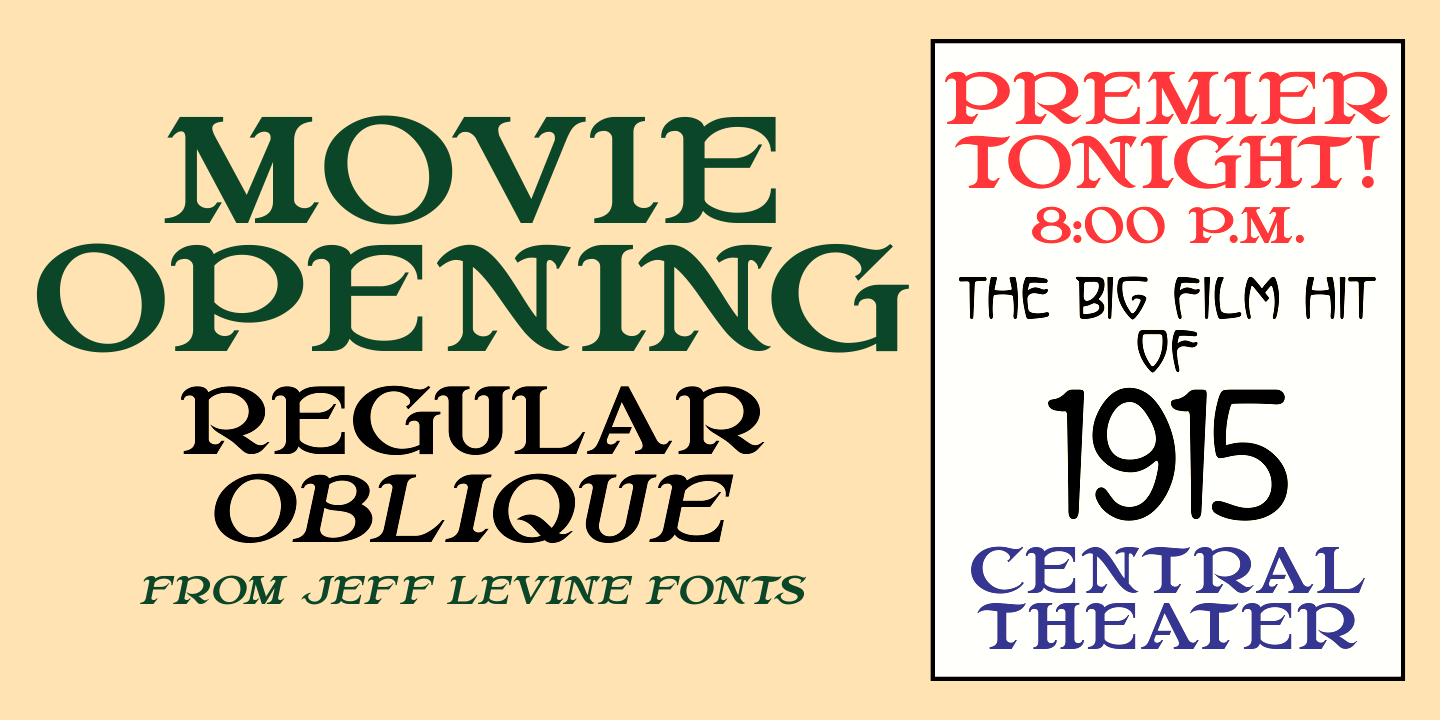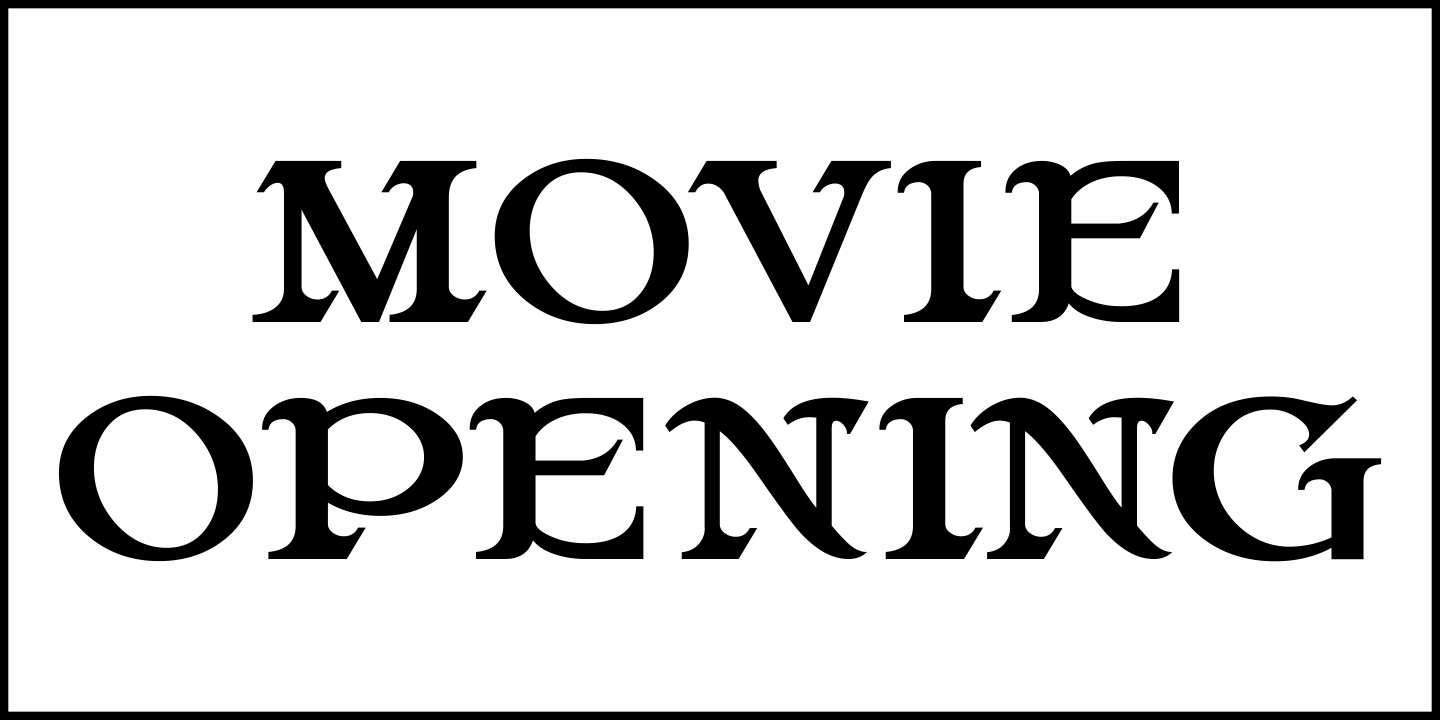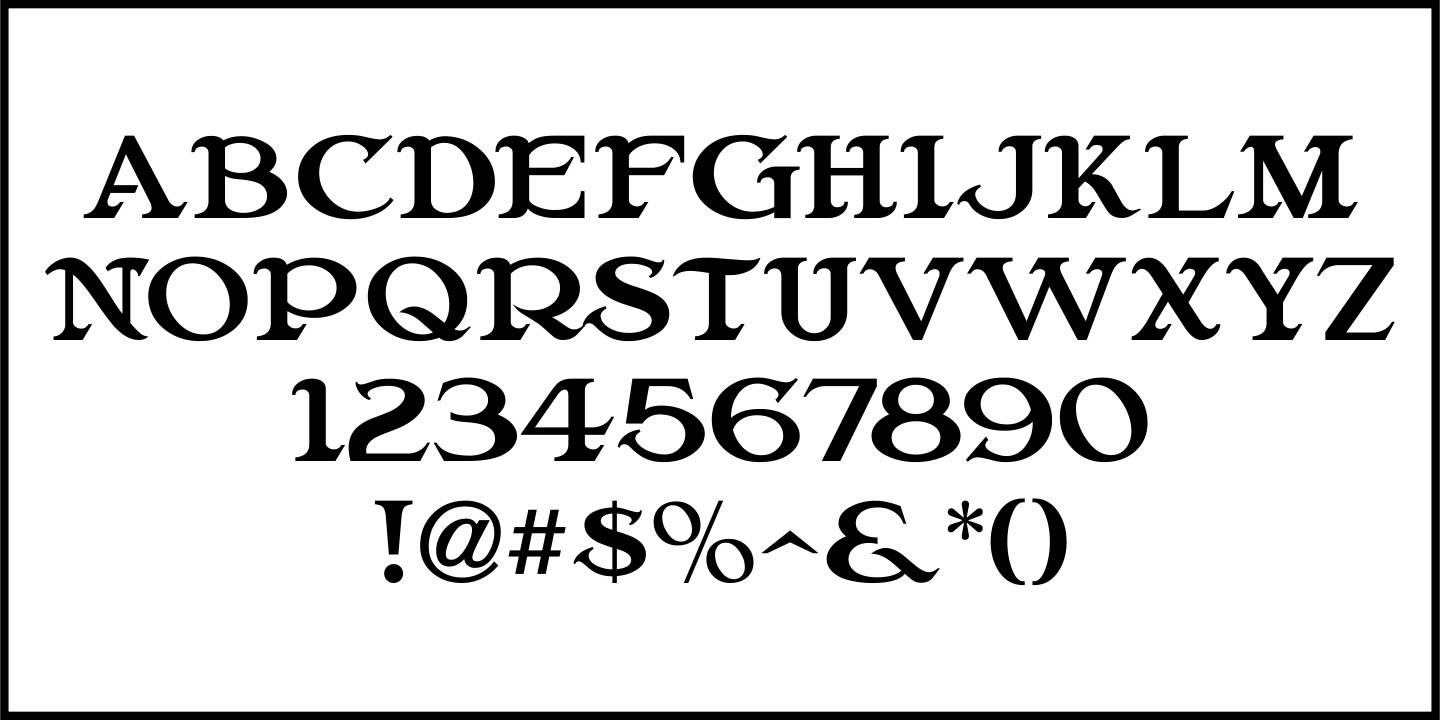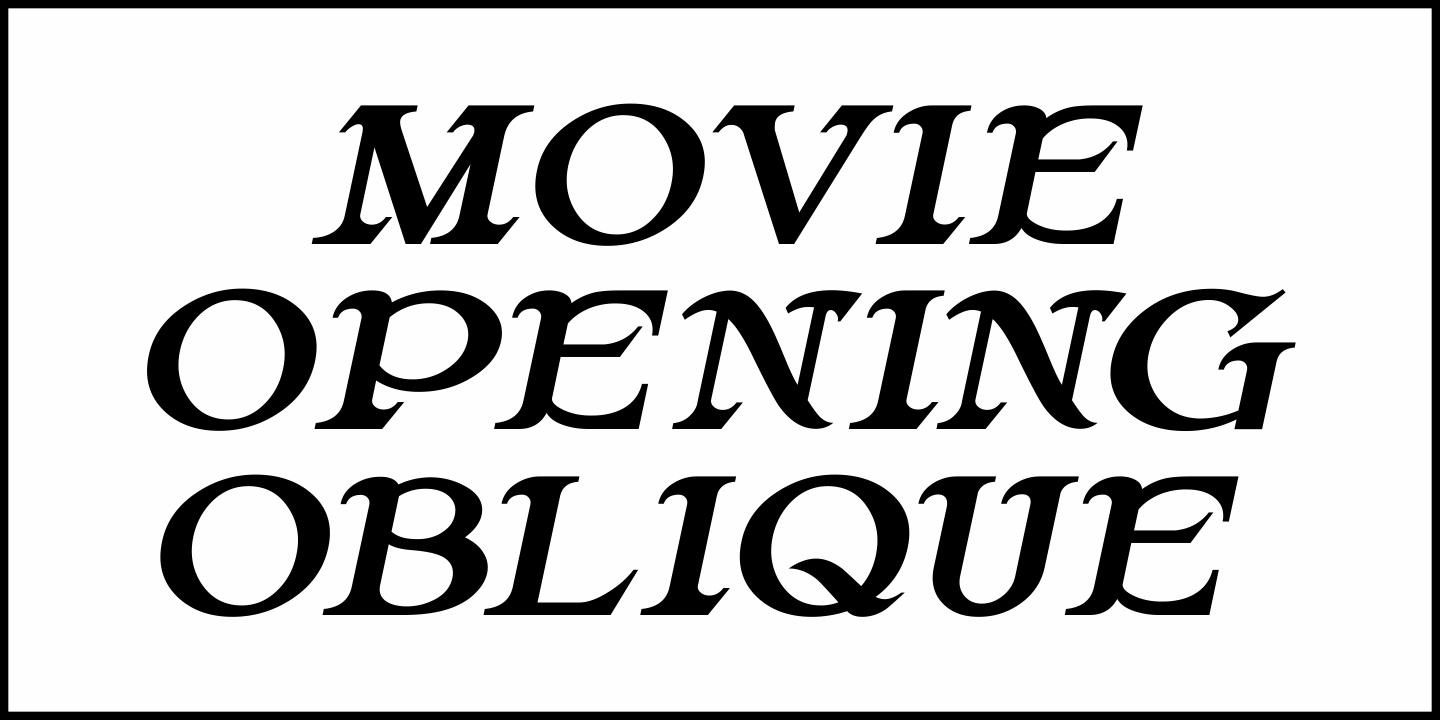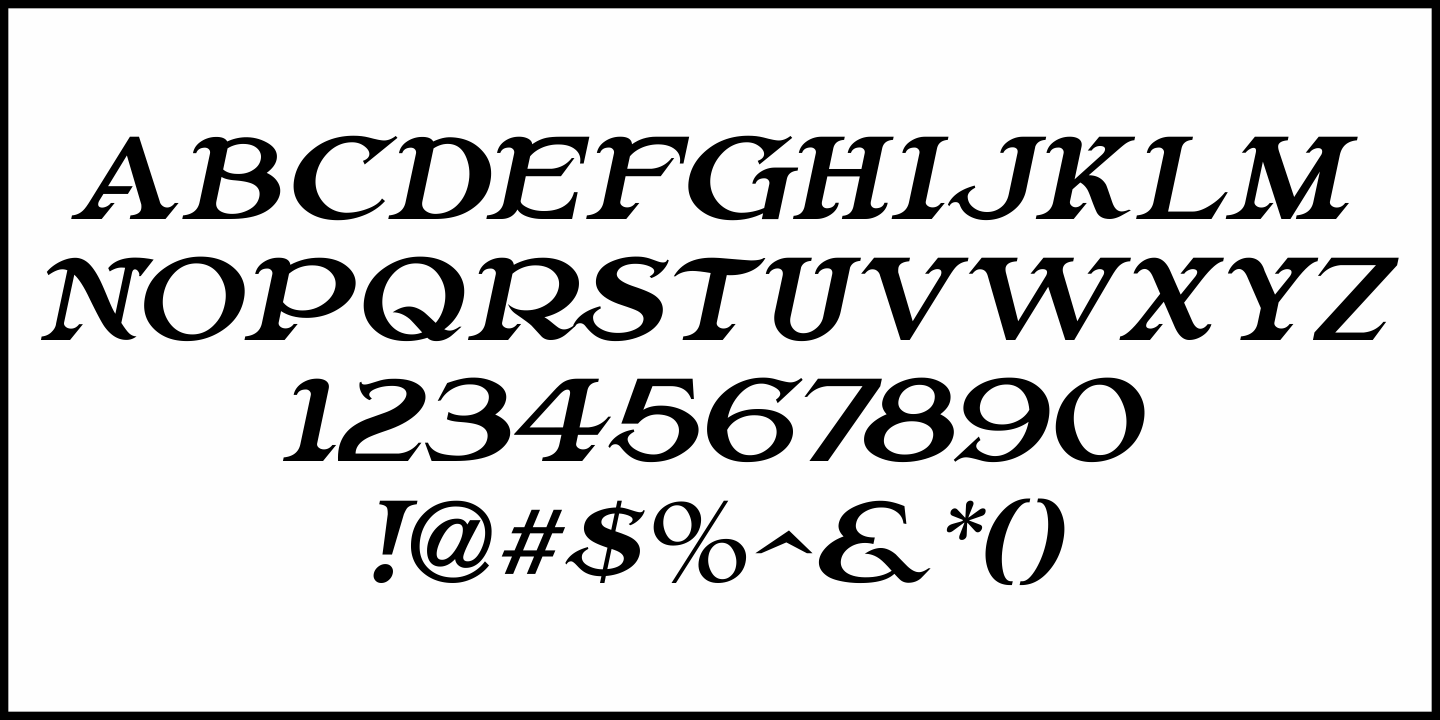
Movie Opening
An ad in the August 7, 1915 issue of Moving Picture World for World Film Corporation had the company's name hand lettered in a semi-calligraphic, Art Nouveau style.
This unique design has been reimagined as the digital typeface Movie Opening JNL, and is available in both regular and oblique versions.